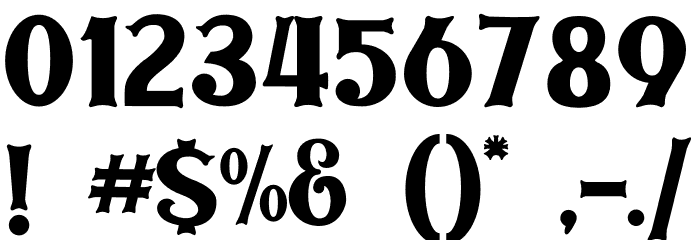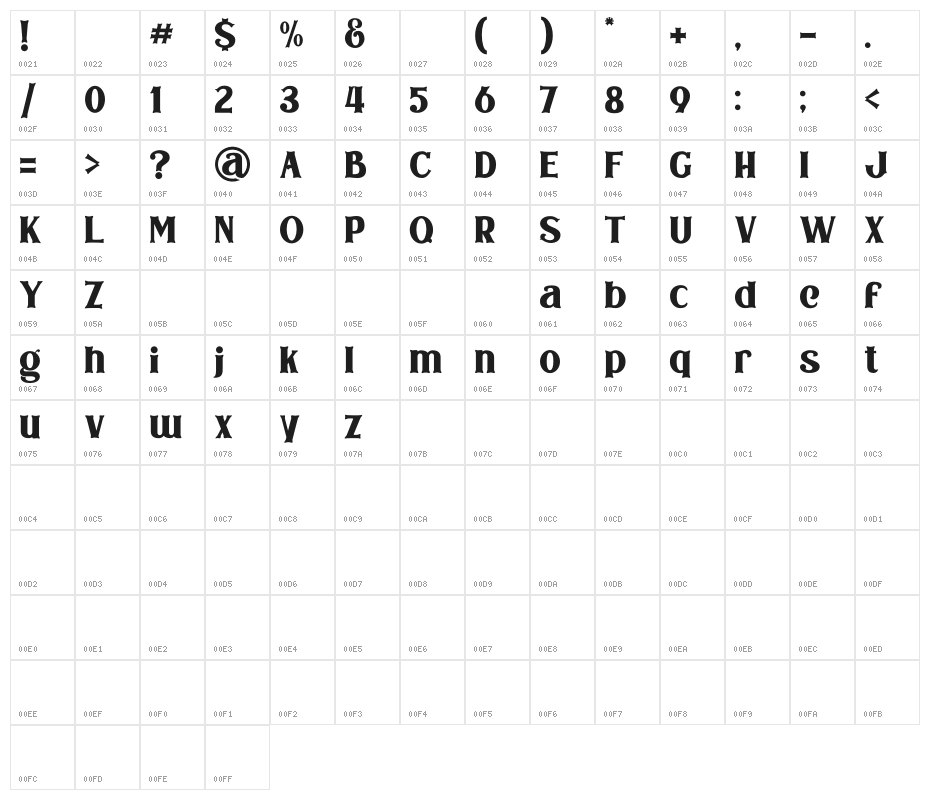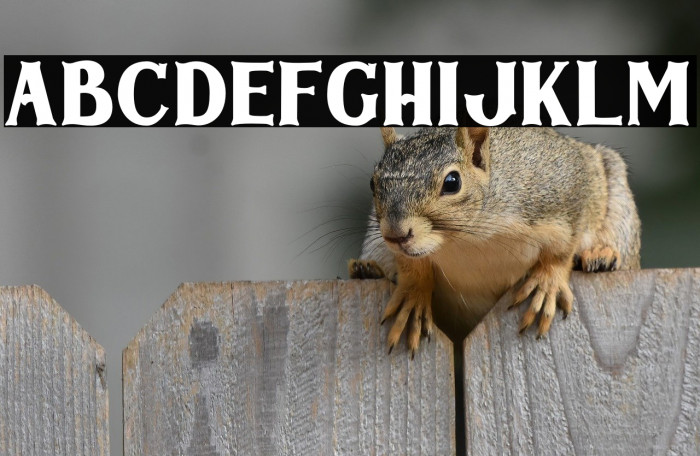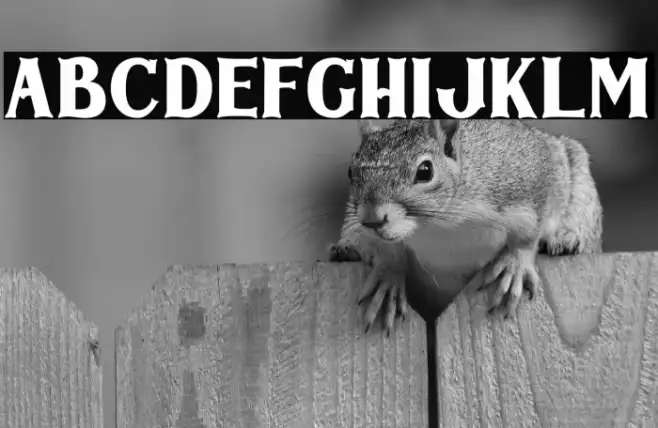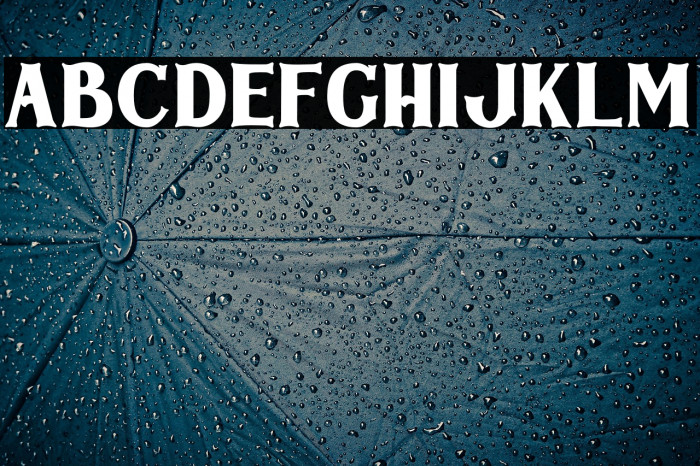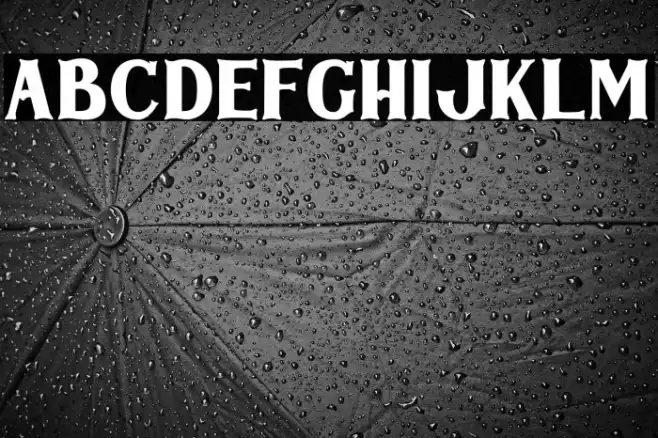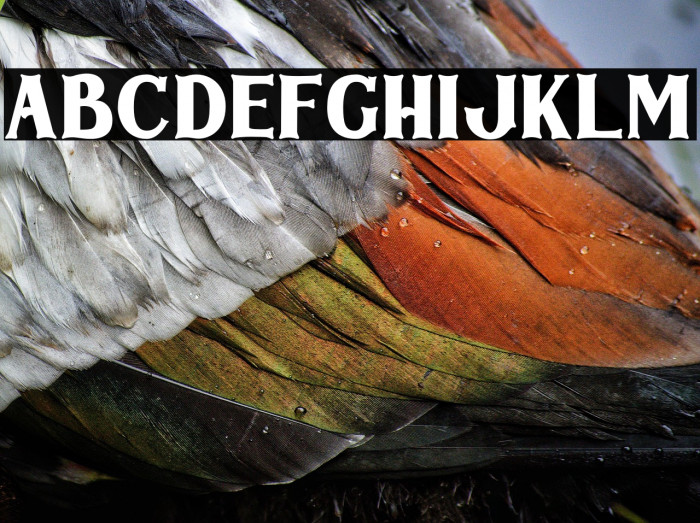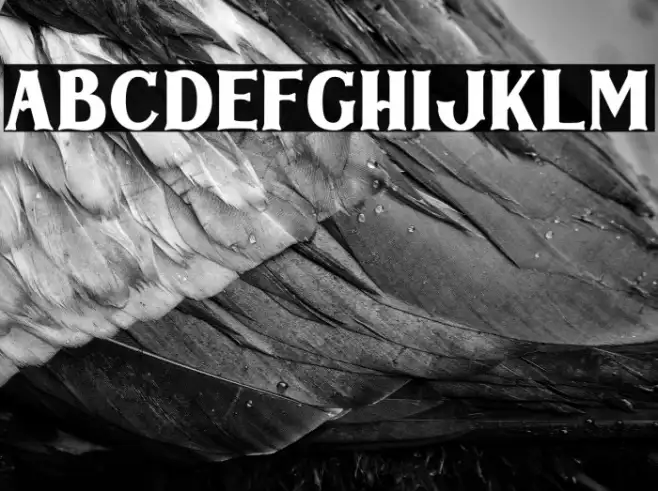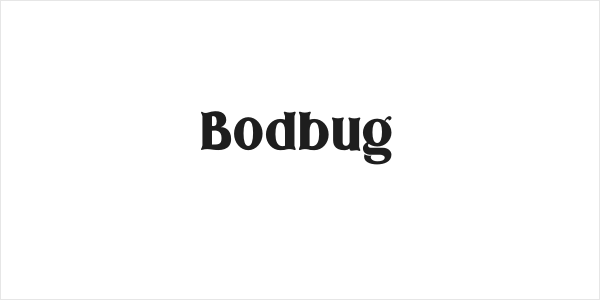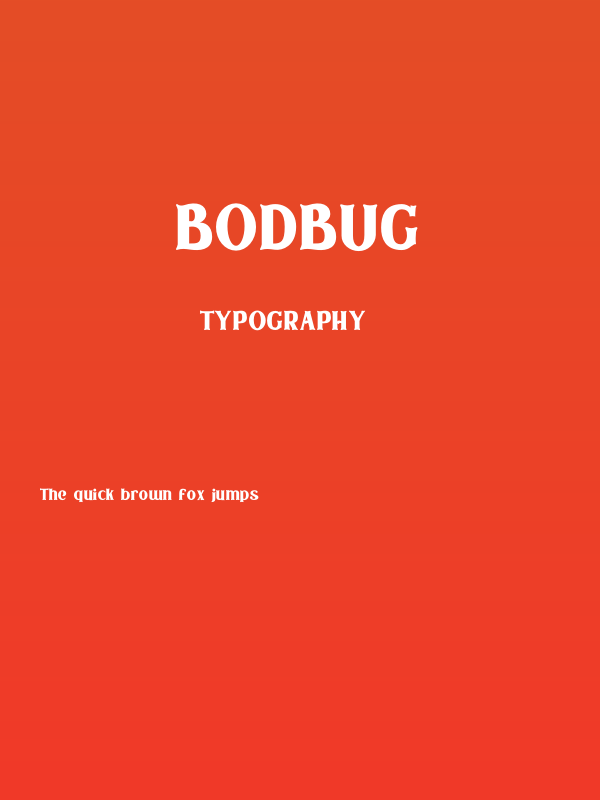
Bodbug Font
Bodbug Description
This font features a bold and distinctive style with thick, dramatic strokes and a slightly condensed appearance. The characters exhibit a unique blend of sharp angles and smooth curves, giving it a dynamic and eye-catching look. The uppercase letters are particularly striking, with strong vertical lines and pronounced serifs that add to the font's commanding presence. The lowercase letters maintain a consistent style, ensuring readability while retaining the font's bold character. Numbers and special characters are designed with the same attention to detail, making them stand out while remaining cohesive with the overall design. This font is ideal for projects that require a strong visual impact.
| Proposed Projects | Ideal for branding, posters, headlines, and any design requiring a strong visual impact. |